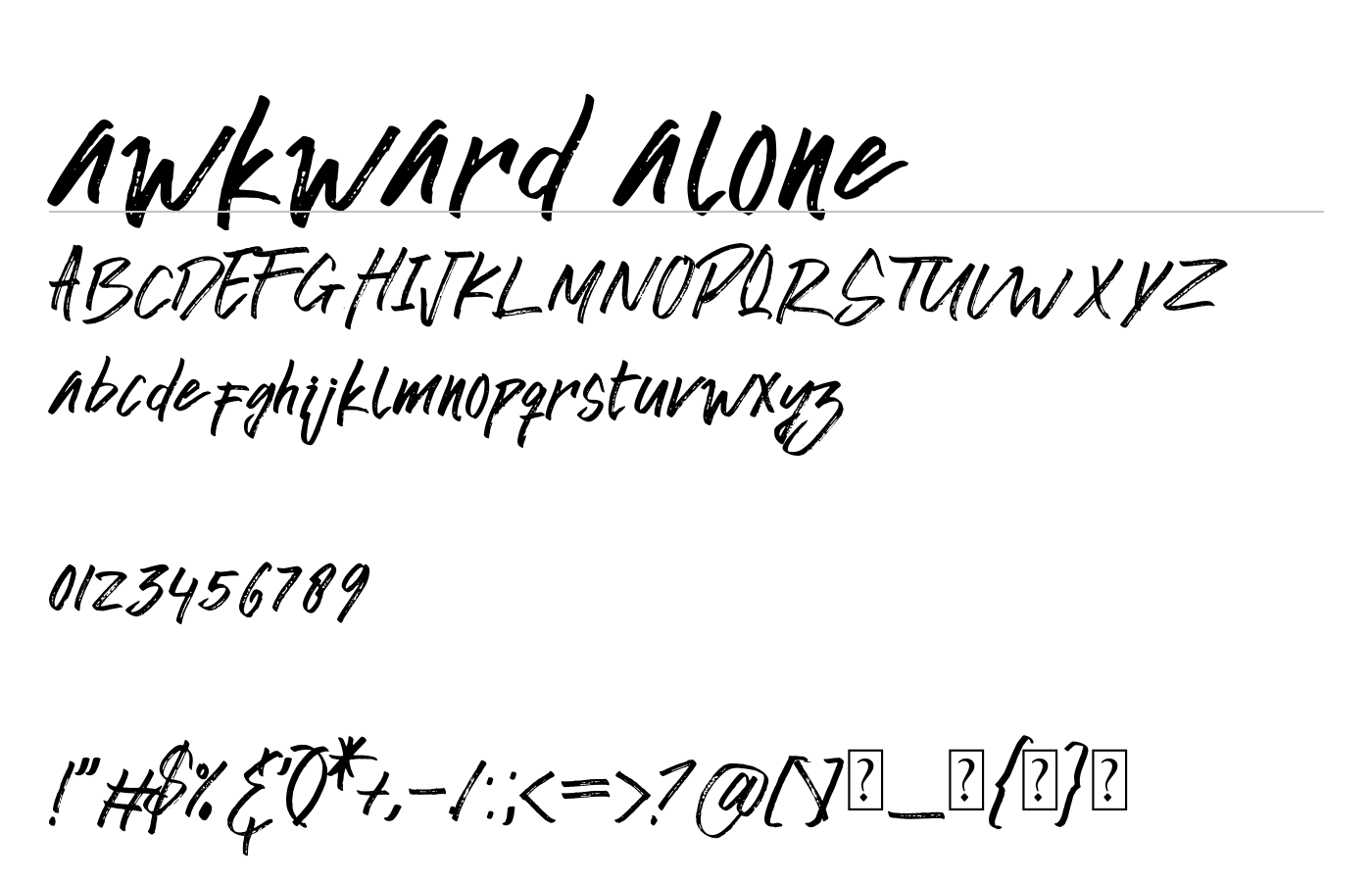
Awkward Alone is a bold, expressive script font with a hand-painted feel, characterized by its uneven, brush-like strokes and lively, irregular letterforms. It conveys a raw, spontaneous personality, making it ideal for creative and informal branding, artistic projects, and dynamic headlines where a unique, personal touch is desired. This font works best in designs that aim to stand out with an authentic, edgy vibe rather than in formal or highly structured contexts.
awkward alone Font
About awkward alone Font